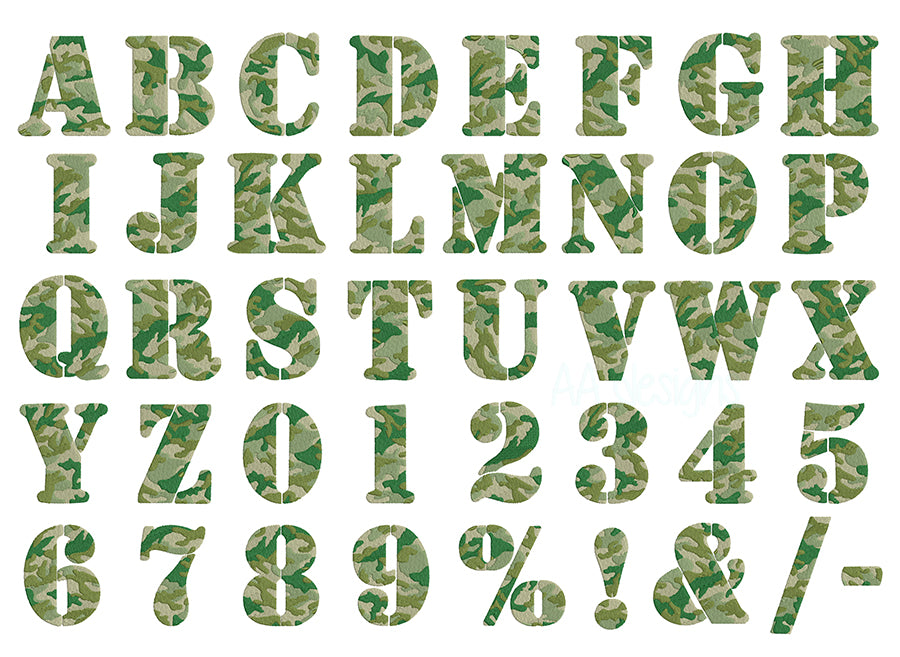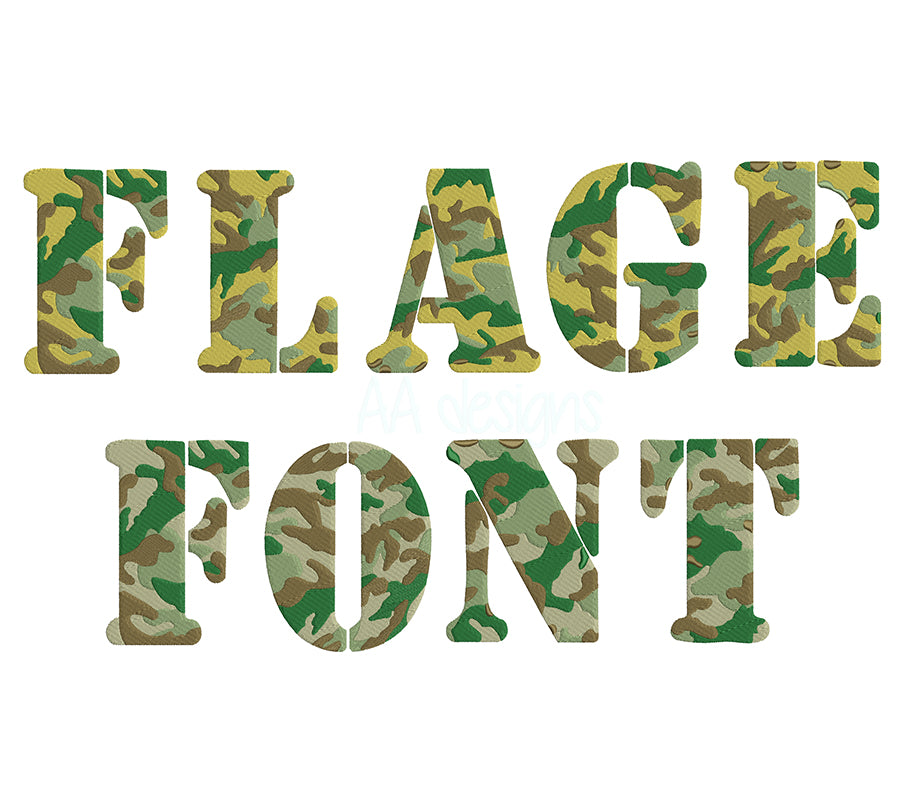
Camouflage Embroidery Font
Blend bold style with rugged character using the Camouflage Embroidery Font — a tough, eye-catching machine embroidery font where every letter is filled with a classic camo pattern that commands attention. 🌿🧵🎯
Perfect for hunting and outdoor gear, military appreciation items, tactical apparel, country lifestyle clothing, and anyone who loves the camo aesthetic. This font stitches up with striking detail on hats, jackets, vests, bags, and more.
- Includes full alphabet (A–Z, a–z) and numbers
- Camo fill design — ideal for multi-color thread work in classic green, brown, or digital camo palettes
- Best stitched at medium to large sizes for maximum camo detail
- Perfect for hats, caps, jackets, vests, tote bags, and outdoor apparel